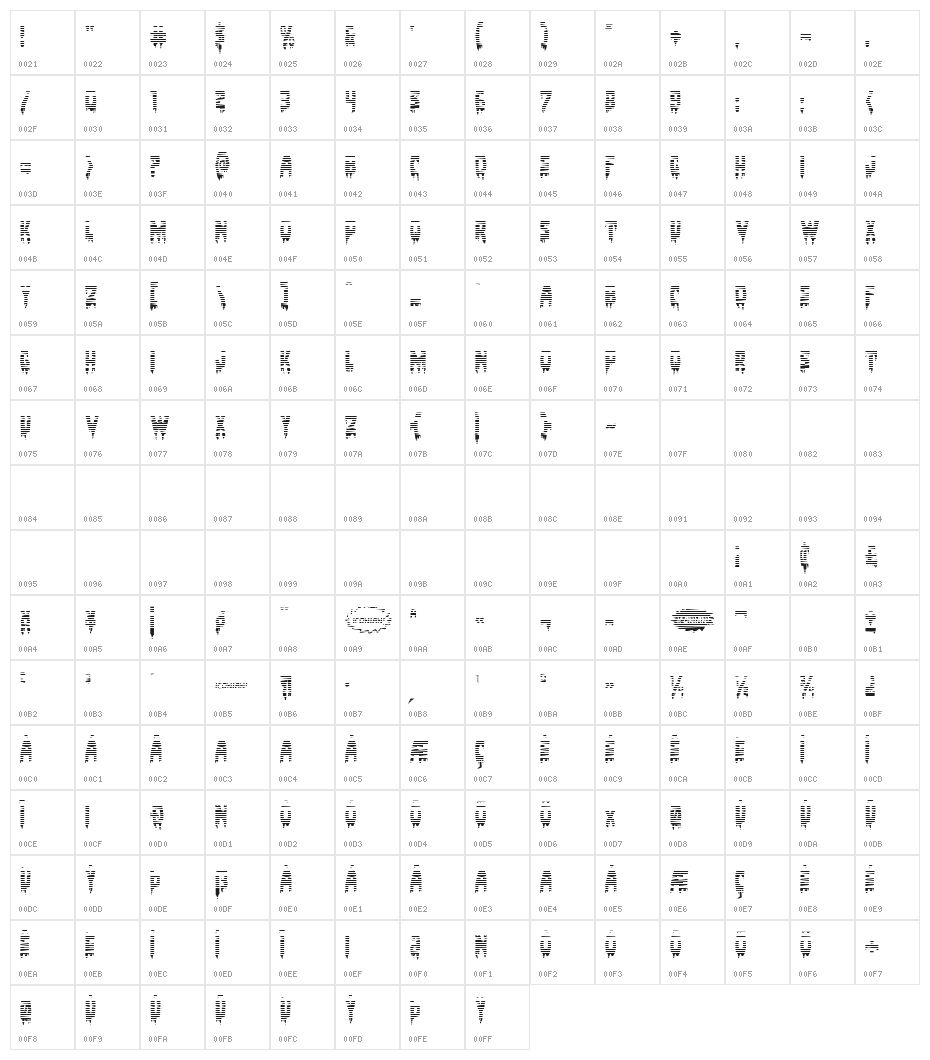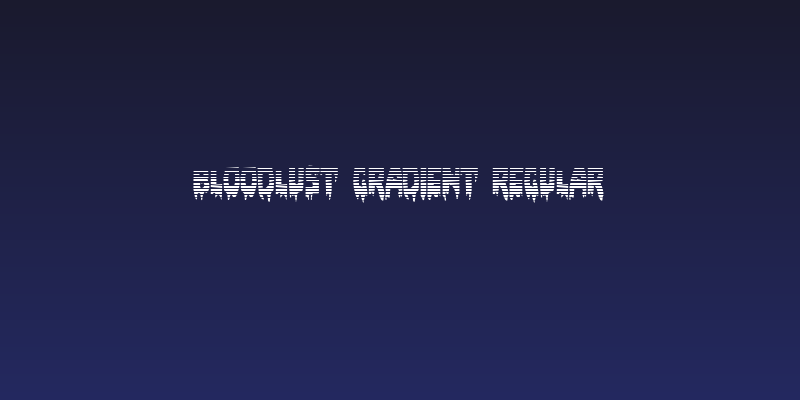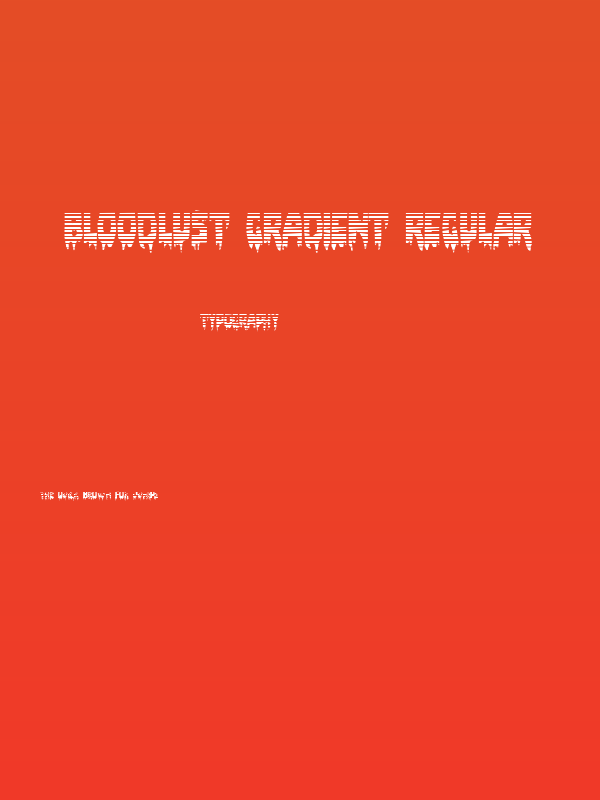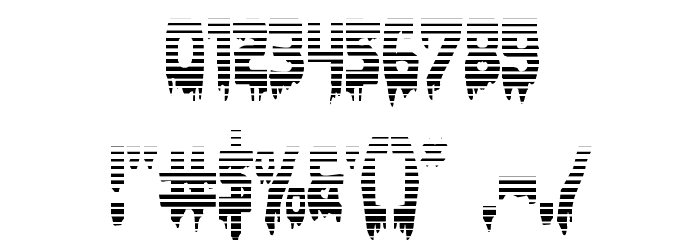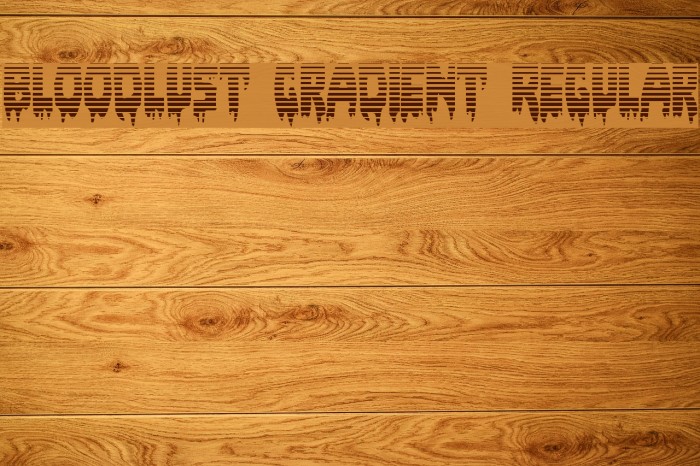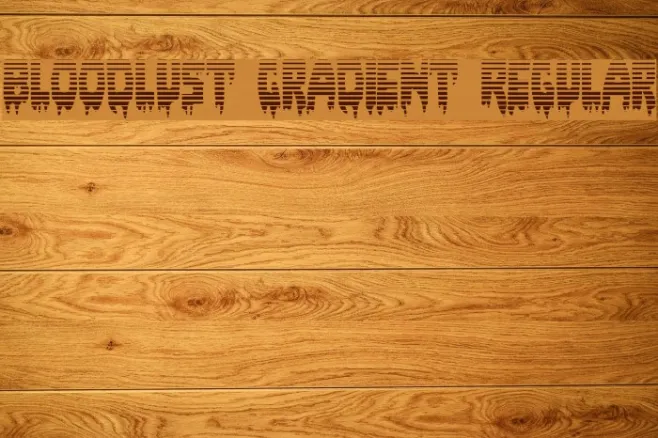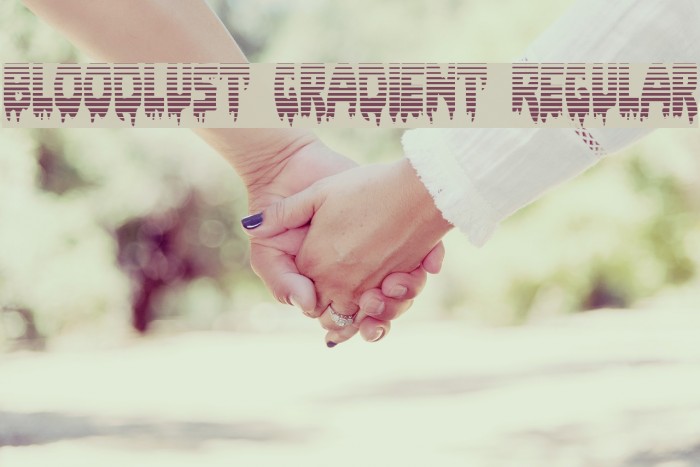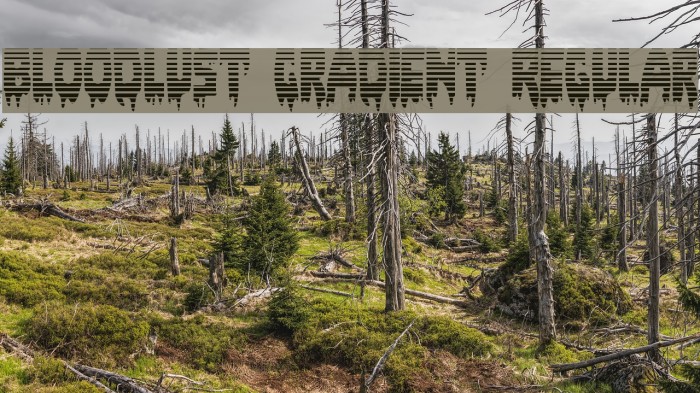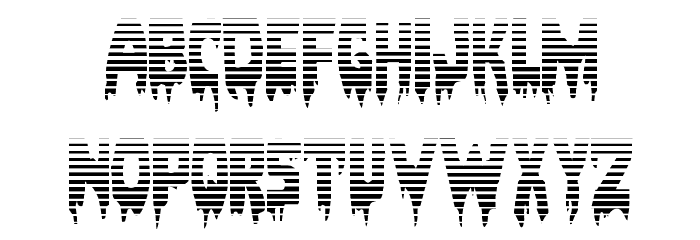
Bloodlust Gradient Regular Font
Bloodlust Gradient Regular Description
This font features a dramatic and edgy design, characterized by its dripping, blood-like appearance. The letters have a bold, jagged style with a gradient effect that adds depth and intensity. The uppercase and lowercase letters maintain a consistent theme, with sharp edges and a unique, horror-inspired aesthetic. The numbers and special characters follow suit, providing a cohesive look across all glyphs. This font is perfect for projects that require a spooky or thrilling atmosphere, such as Halloween-themed designs or horror movie posters.